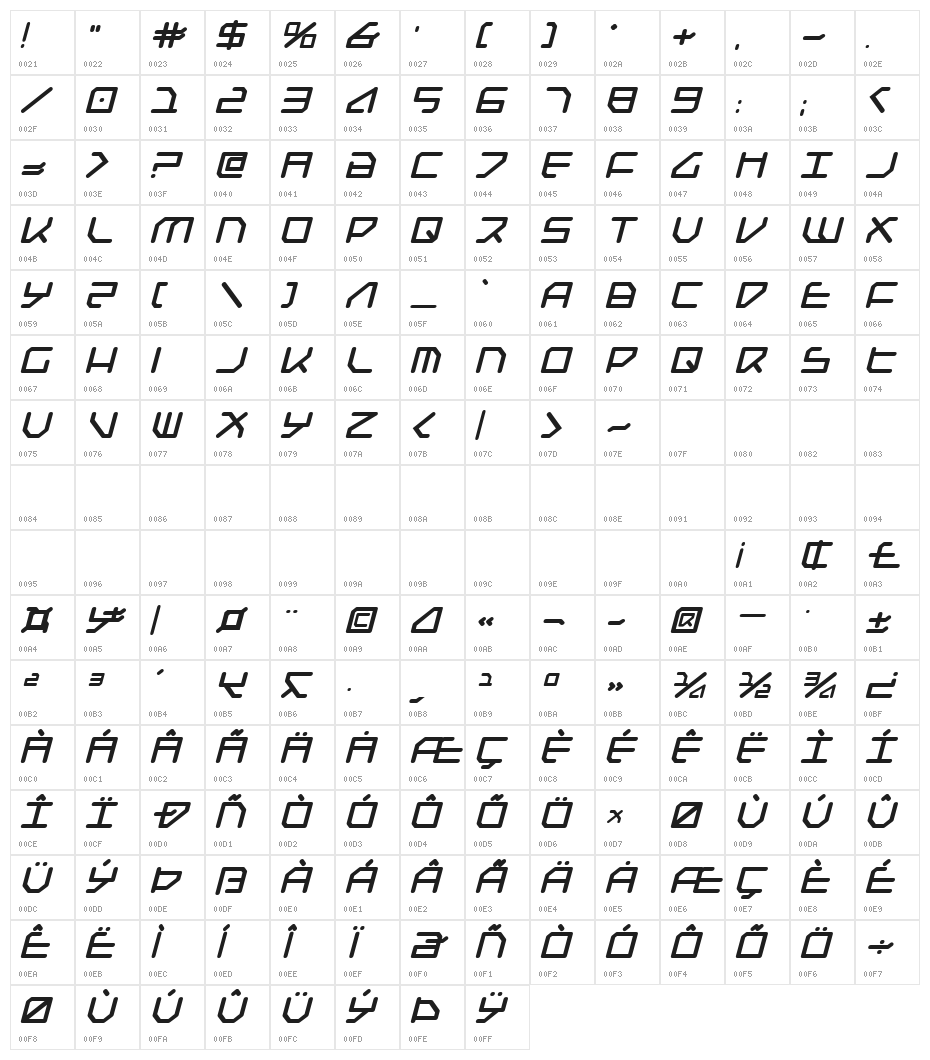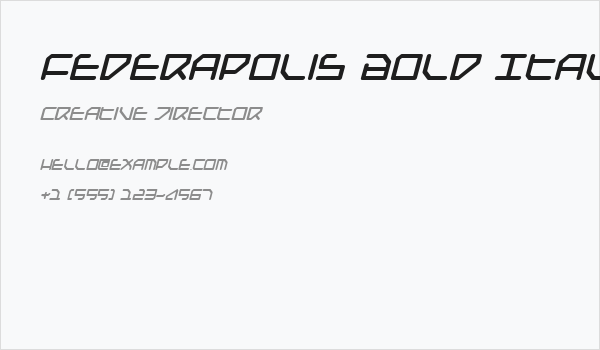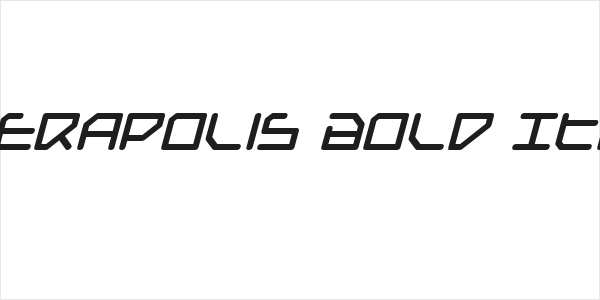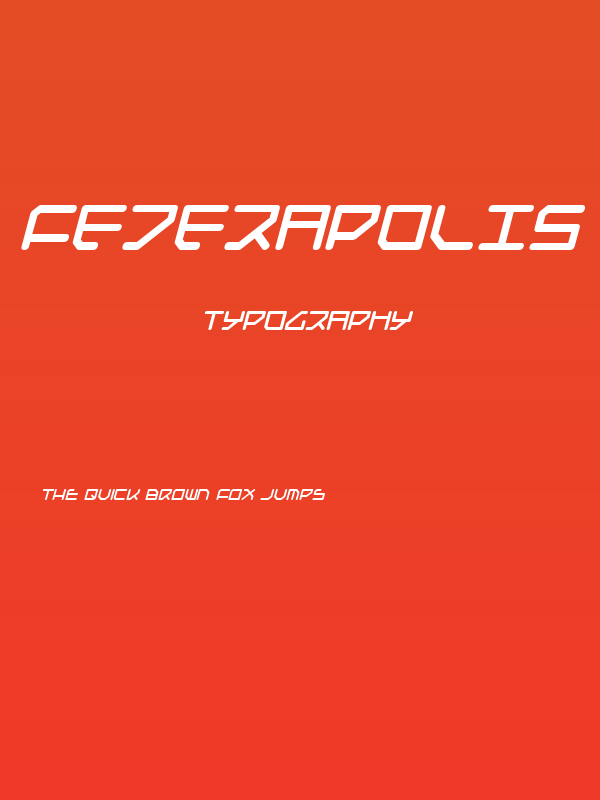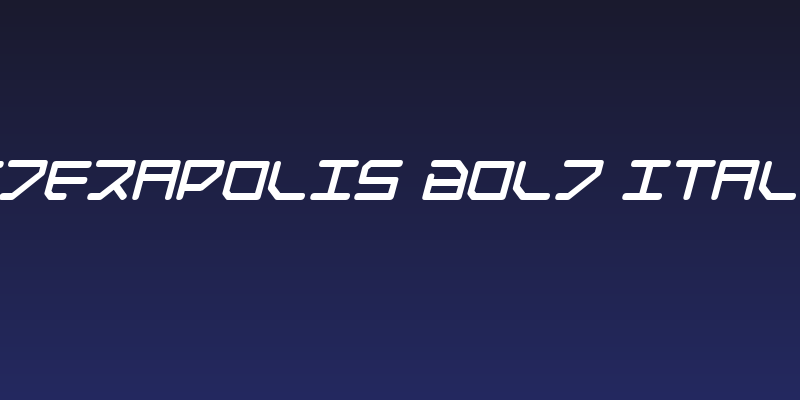
Federapolis Bold Italic Font
Federapolis Bold Italic Description
This font features a futuristic and angular design, characterized by its bold and italicized style. The letters are constructed with sharp, geometric lines and a consistent slant, giving it a dynamic and forward-moving appearance. The uppercase and lowercase letters maintain a uniform height, while the numerals and special characters follow the same angular theme. The overall look is sleek and modern, making it suitable for projects that require a contemporary and tech-savvy aesthetic.
Proposed ProjectsIdeal for technology branding, sci-fi themed posters, video game titles, and modern advertising.